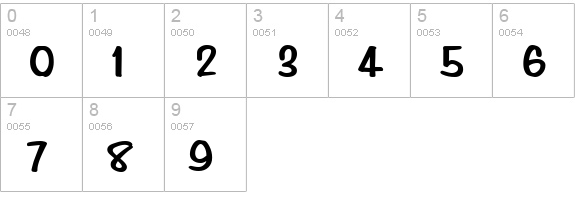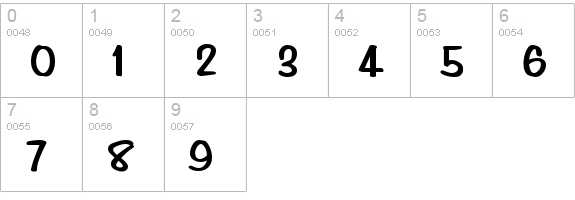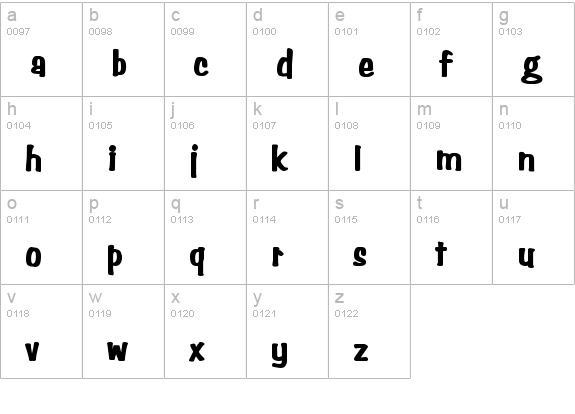
Simpson Heavy Bold is a heavy, high-impact variant in the Simpson typeface family \xE2\x80\x94 well suited to high-impact headlines, posters, and display advertising.
Introducing Simpson Heavy Bold, a remarkable font that exudes strength and authority with its bold and assertive design. This font is perfect for making a bold statement or commanding attention in any project. Simpson Heavy Bold is ideal for headlines, logos, posters, and any other design that requires a strong and impactful typographic presence. What's even more exciting is that Simpson Heavy Bold is available for free! Yes, you heard it right - this remarkable font can be freely downloaded at FontsMarket.com. This means that you can enhance your creative endeavors without any financial constraints. Whether you're a professional designer or an aspiring artist, Simpson Heavy Bold allows you to unleash your creativity without breaking the bank. Featuring clean lines, balanced proportions, and a powerful presence, this font is a versatile tool that can be used in a wide range of design projects. Its bold and sturdy appearance conveys a sense of reliability and confidence, making it the perfect choice for corporate branding, advertisements, and signage. With its extensive character set, Simpson Heavy Bold offers support for multiple languages, ensuring that your message can reach a global audience seamlessly. Its legibility is top-notch, even at smaller sizes, making it ideal for both print and digital applications. So, what are you waiting for? Download Simpson Heavy Bold today and experience the freedom to create impactful designs that captivate and inspire. Head over to FontsMarket.com and unlock the potential of this stunning font. Say goodbye to limitations, and let your creativity soar with Simpson Heavy Bold.